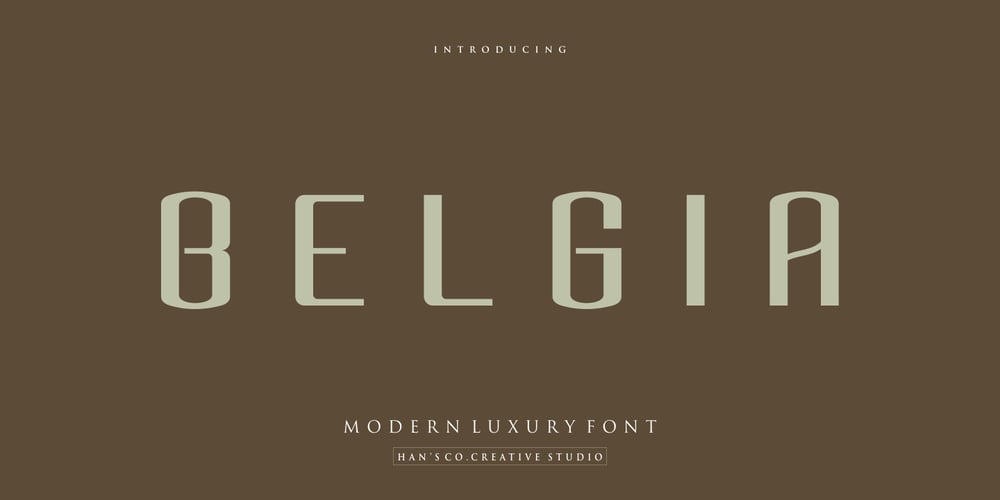
Belgia Font Family was designed by Burhan Afif and published by HansCo. Belgia contains 6 styles and family package options. Here come our latest product with sans serif typeface called Belgia. This font has the characteristics of a rounded shape on each side. Besides this font is perfect for those of you who are looking for font with bold and rounded but still look classy. You can use it on corporate branding, logo, document, social media design, presentation, print design, web, etc. This typeface is comes in uppercase, lowercase, punctuation, symbols, numerals, etc also support multilingual.